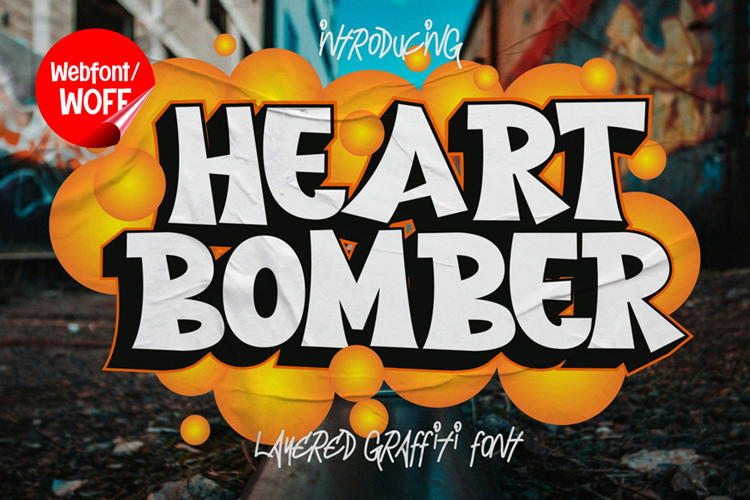
Heart Bomber | 3D Layered Graffiti Webfont for Bold Websites
Heart Bomber is a 3D layered graffiti webfont designed to deliver bold impact and strong visual depth for modern website design. Inspired by urban street art and expressive graffiti lettering, this font combines thick structures with layered dimension to create a powerful and energetic appearance. It is an excellent choice for projects that need to stand out with a striking and creative typographic style.
Heart Bomber features a complete set of uppercase characters designed with bold shapes and layered effects. The 3D construction adds depth and volume to each letter, making it ideal for headlines, banners, hero sections, and featured content. These eye-catching letterforms help create strong visual hierarchy, guiding attention to key elements across the layout.
In addition to letters, the font includes numbers and punctuation, allowing for flexible use across various website elements. It works well for promotional text, pricing displays, event information, and navigation highlights. Each character maintains the same layered graffiti style, ensuring consistency and a cohesive visual identity throughout the design.
With multilingual support, Heart Bomber includes a wide range of accented characters, making it suitable for international websites and global audiences. This allows content to be presented clearly across different languages while maintaining the bold and dimensional graffiti aesthetic.
The 3D layered graffiti style of Heart Bomber makes it especially suitable for urban-themed websites, streetwear brands, music platforms, gaming interfaces, and creative portfolios. Its strong depth effect adds movement and intensity, helping designs feel more dynamic and engaging. The graffiti influence brings authenticity and a modern street-inspired character that resonates with contemporary audiences.
Despite its bold and layered design, Heart Bomber is created with readability in mind. The spacing and structure of each character are carefully balanced to ensure clarity, particularly in display sizes. This makes it effective for impactful headings and short content elements where both style and legibility are important.
Heart Bomber is a webfont that combines graffiti aesthetics with dimensional design and modern usability. Its bold shapes, layered depth, and urban energy create a distinctive visual identity that enhances website design. For projects that require strong presence, creative expression, and eye-catching typography, Heart Bomber offers a powerful and visually engaging solution.